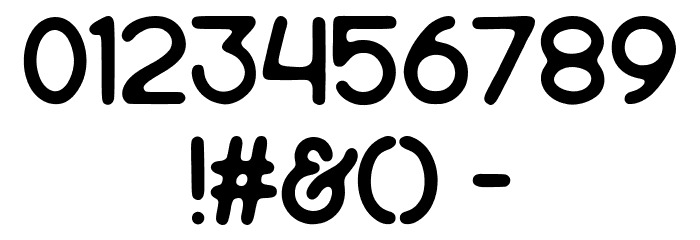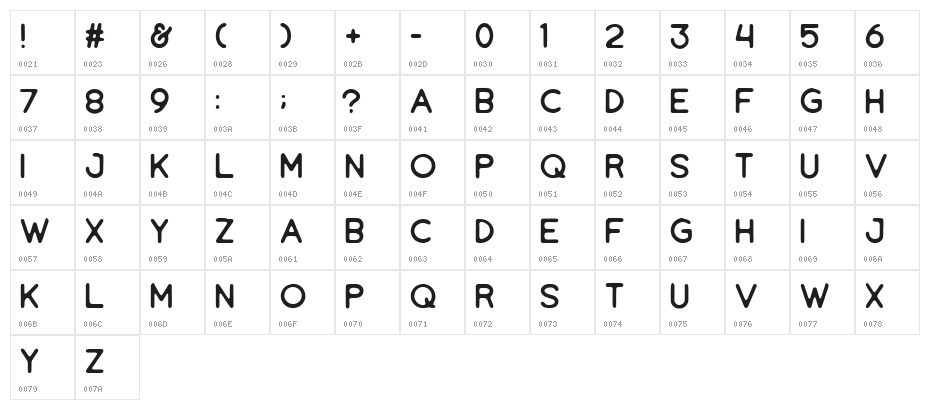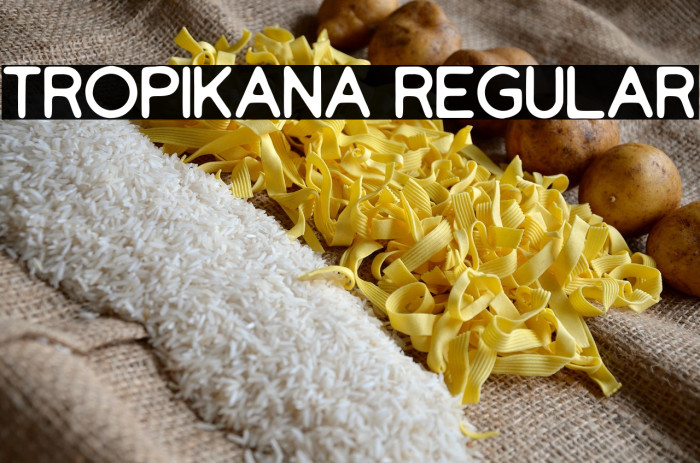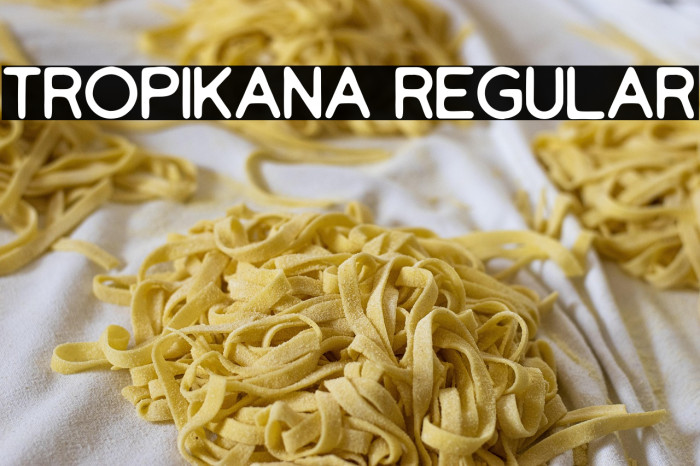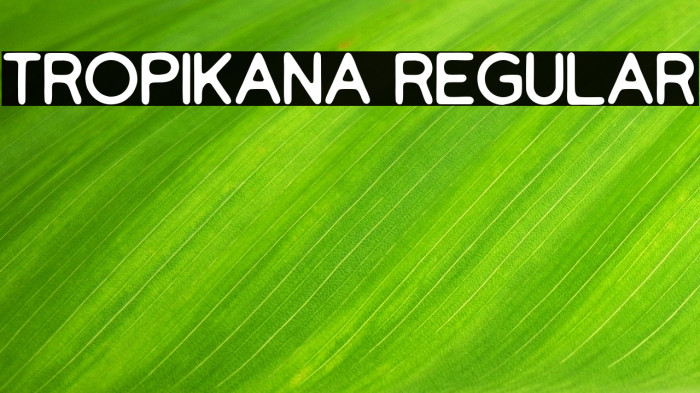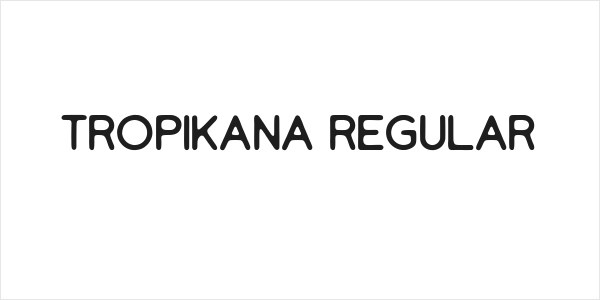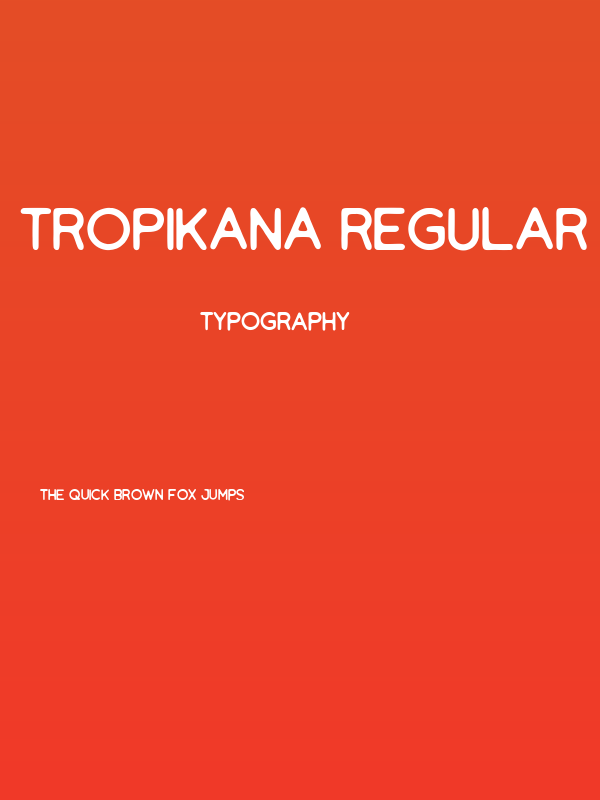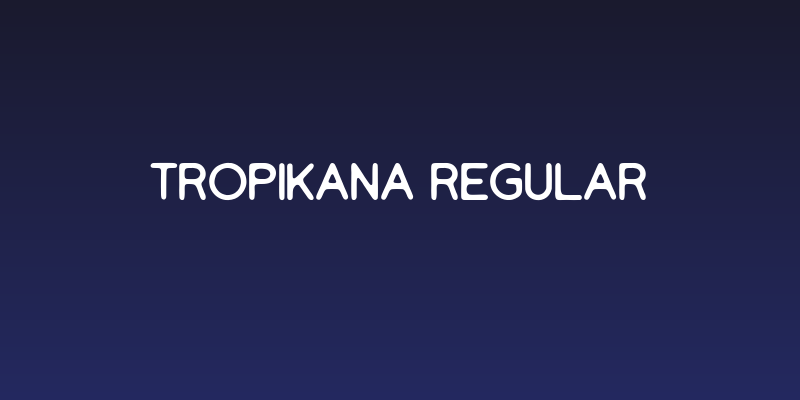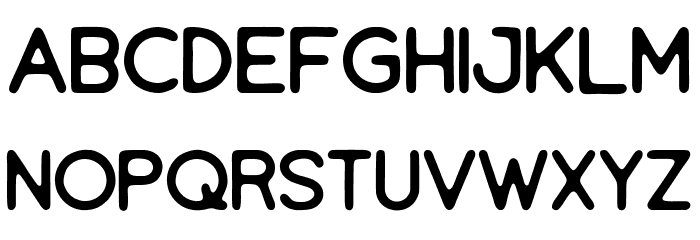
Tropikana Regular Font
Tropikana Regular Description
This font features a playful and rounded style, characterized by its smooth curves and bold presence. The letters are evenly spaced, providing a clean and approachable look. The rounded edges give it a friendly and informal appearance, making it suitable for casual and fun design projects. The numerals and special characters maintain the same rounded aesthetic, ensuring consistency across all elements. This font is versatile and can be used in various contexts where a lighthearted and engaging tone is desired.
| Proposed Projects | Ideal for children's books, playful branding, casual invitations, and creative posters. |